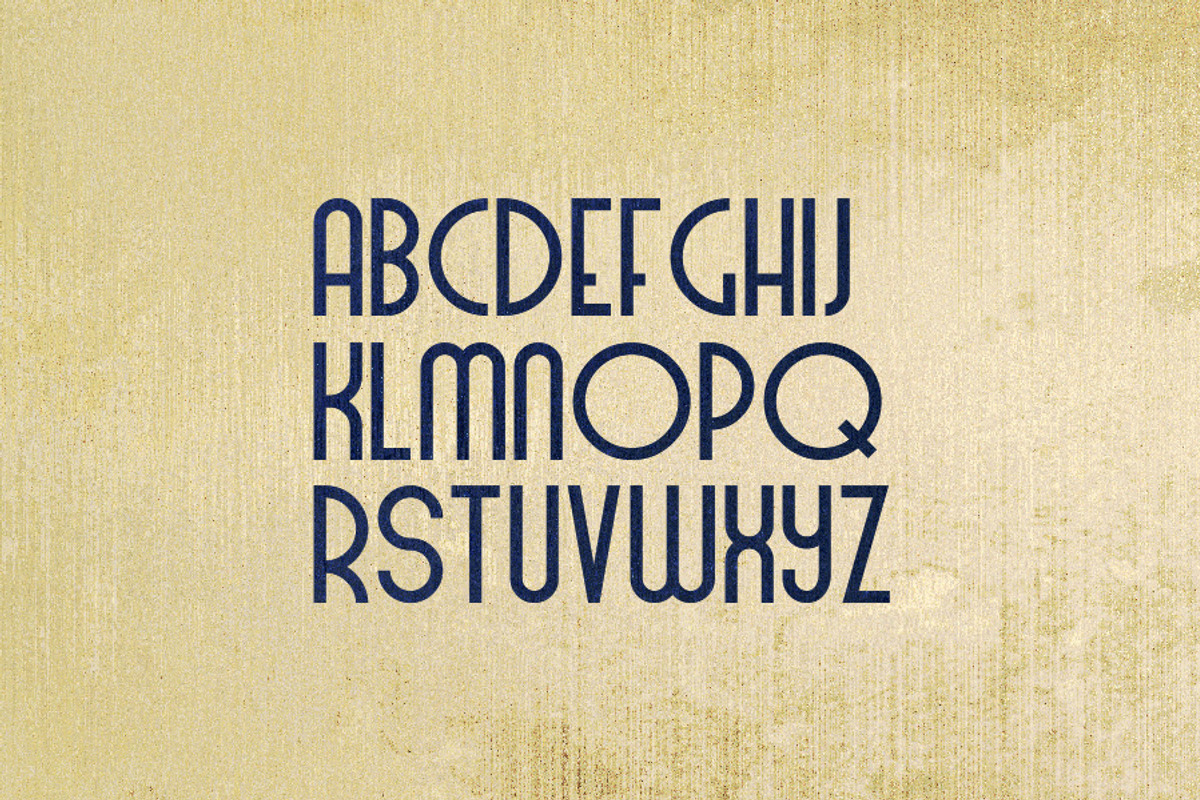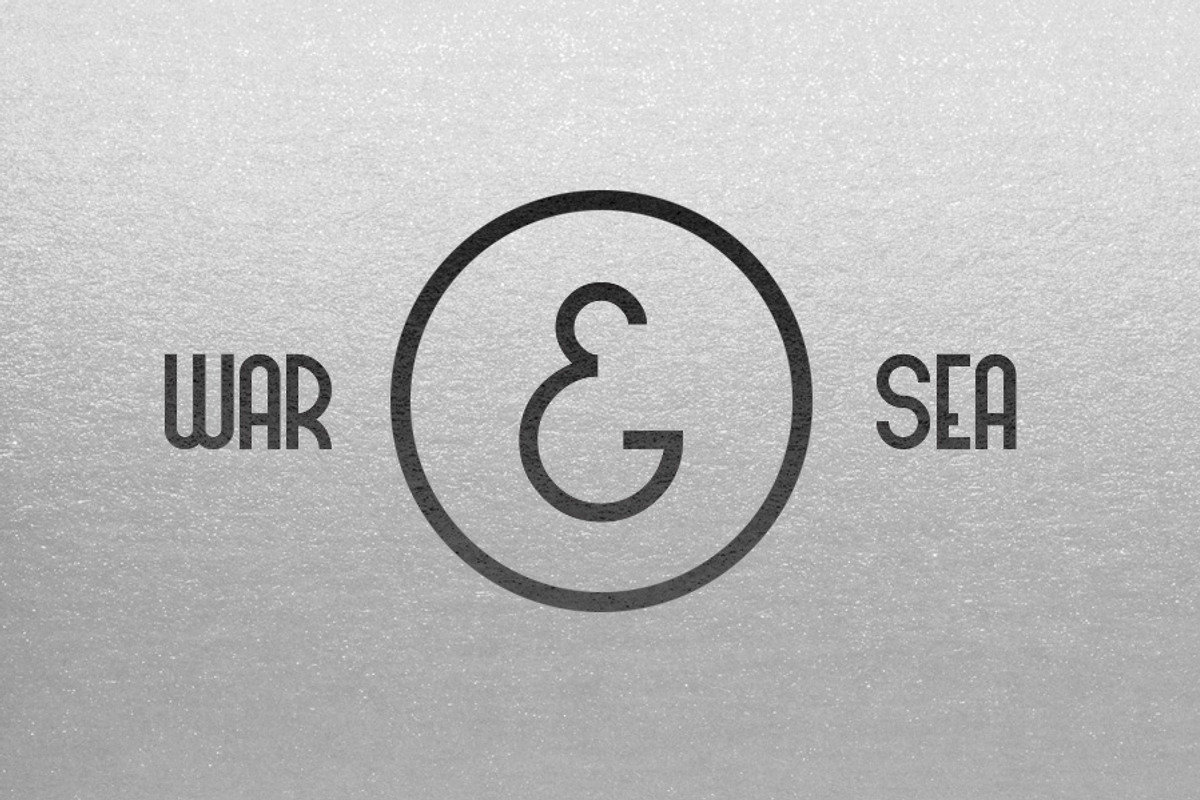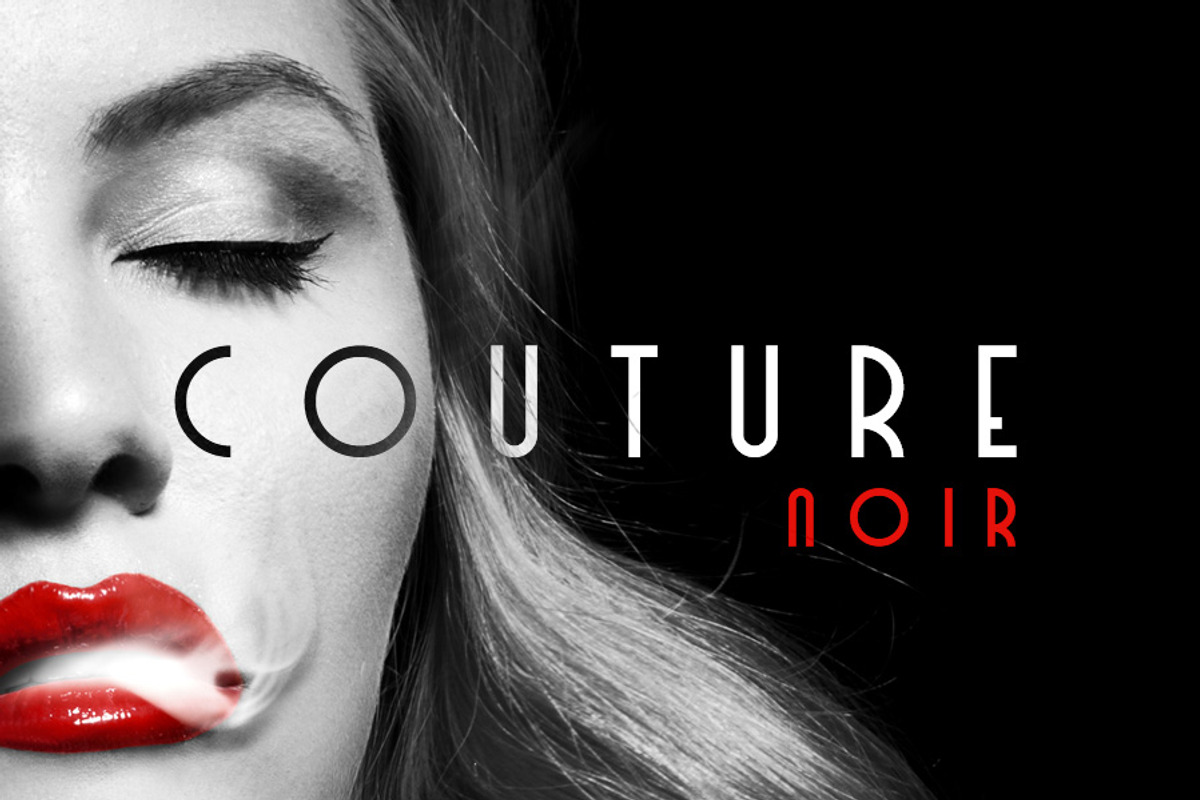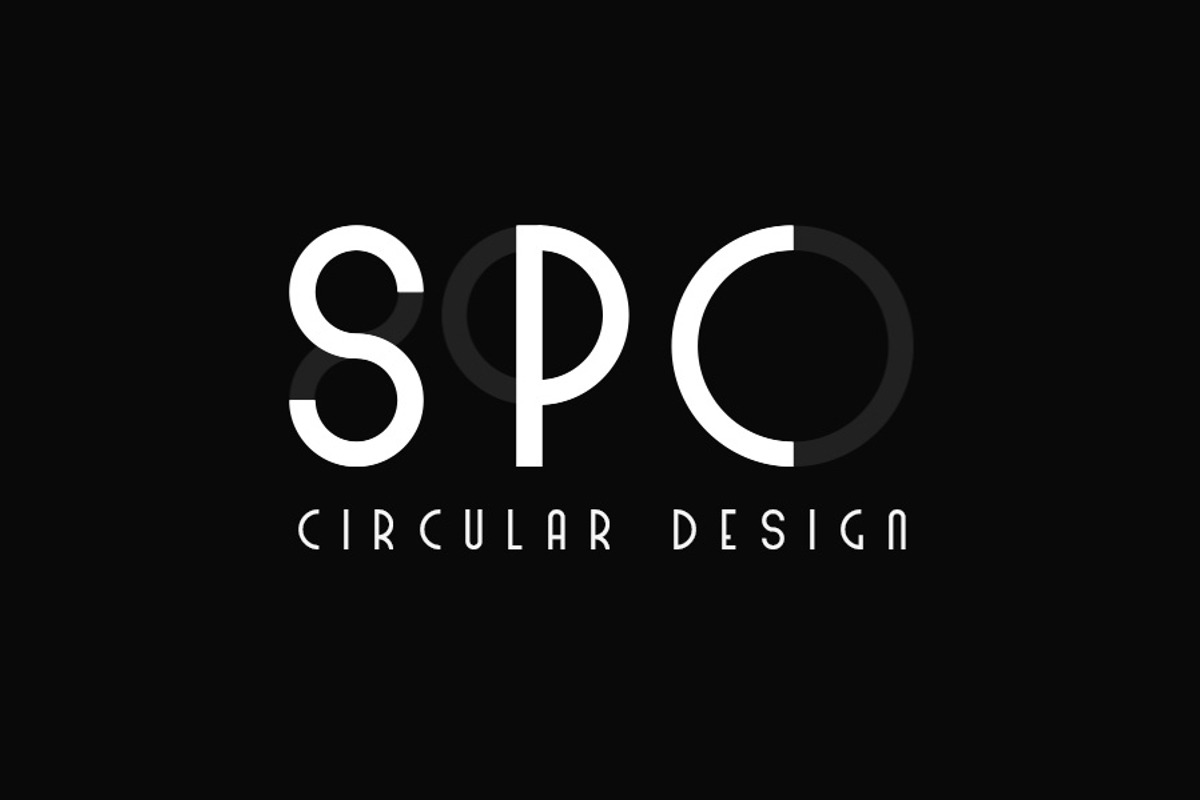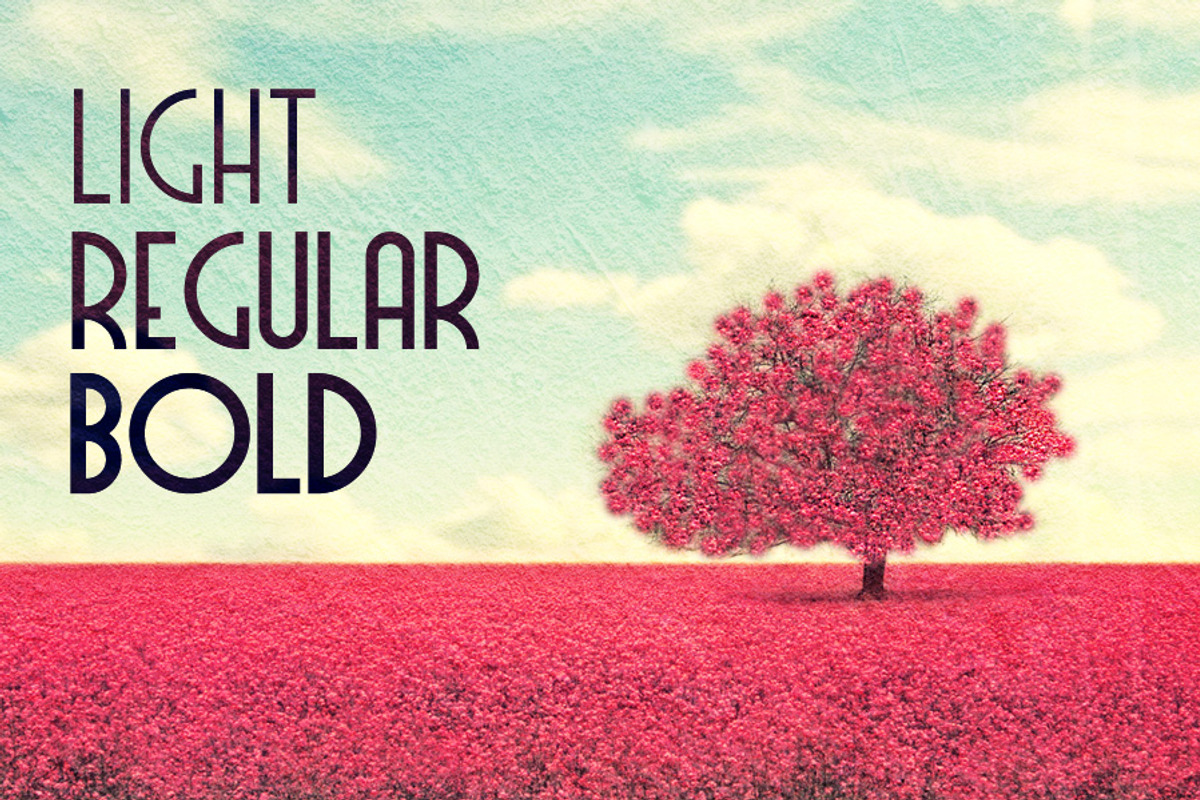
Ironclad Typeface
Ironclad Typeface by Tugcu Design Co. is a font selected for branding, posters, packaging, typography.
- It includes multilingual uppercase letters, numbers and punctuation.
Why Ironclad Typeface is worth a look
Ironclad Typeface by Tugcu Design Co. fits naturally into Branding, posters, packaging, typography.